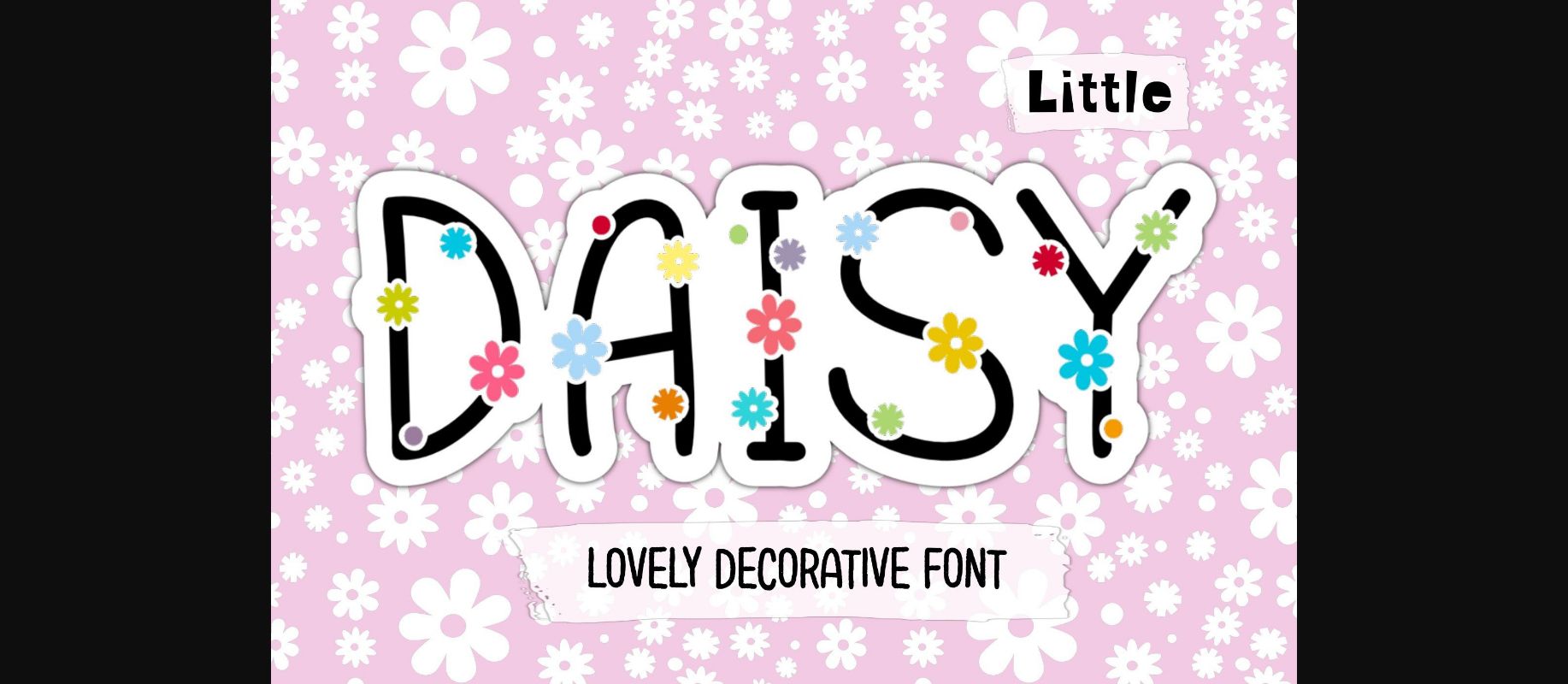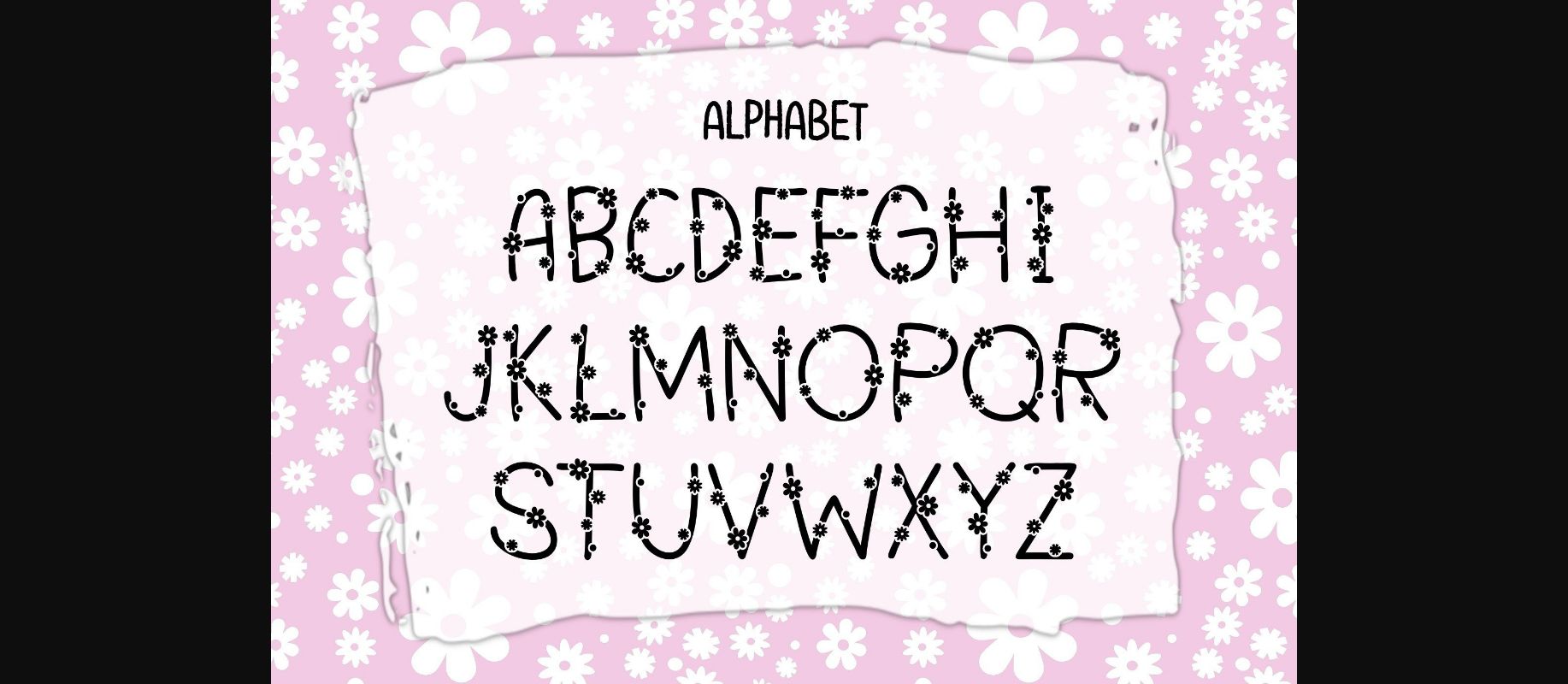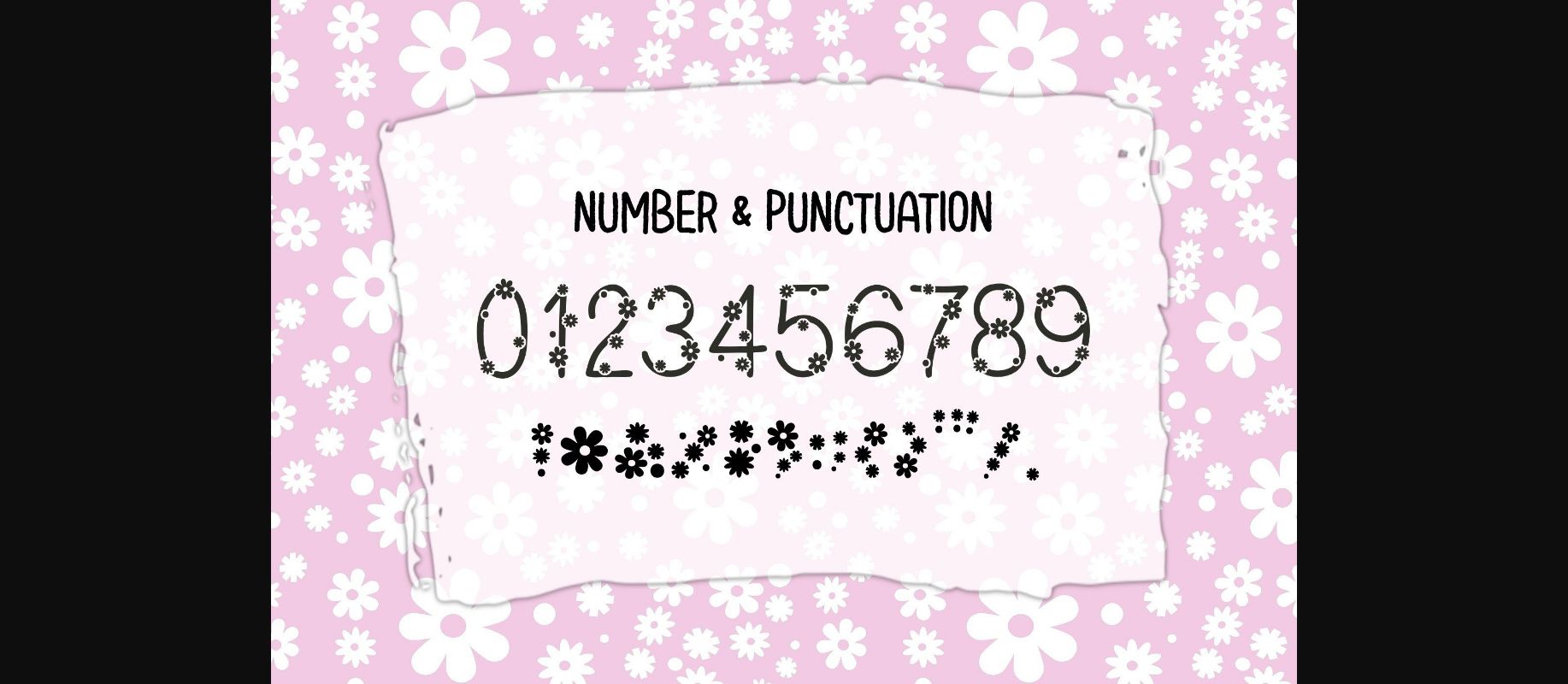
About Little Daisy Font
Little Daisy is a decorative sans serif font designed with cute little flowers. Each character features a lovely daisy. This font is the perfect fit for all of your logos, branding, wall art, signs, cards, art prints, t-shirts, and much more!